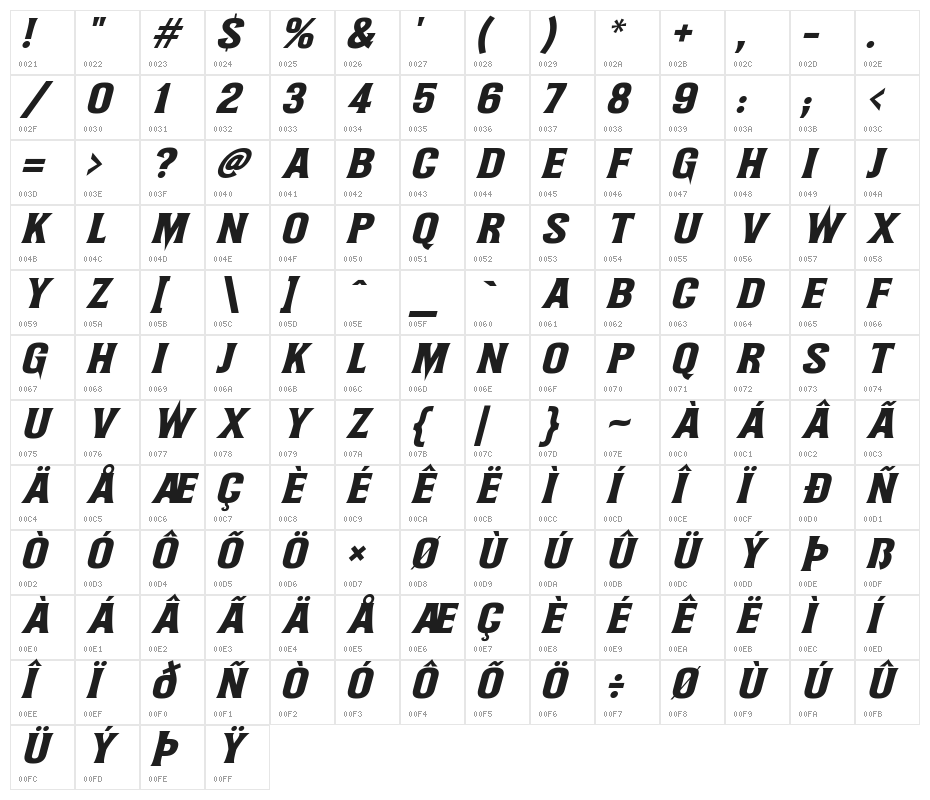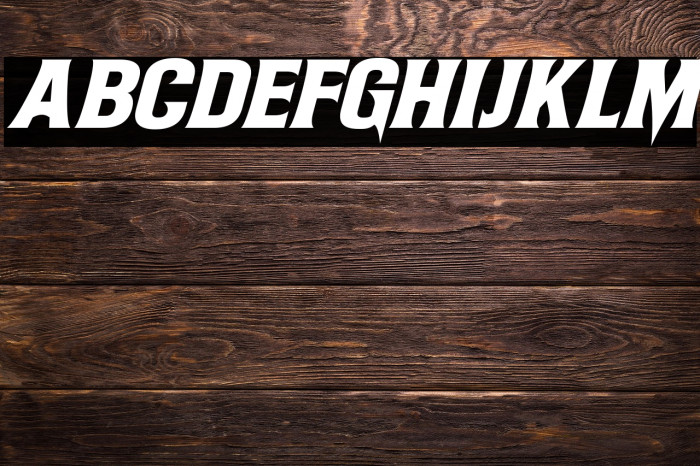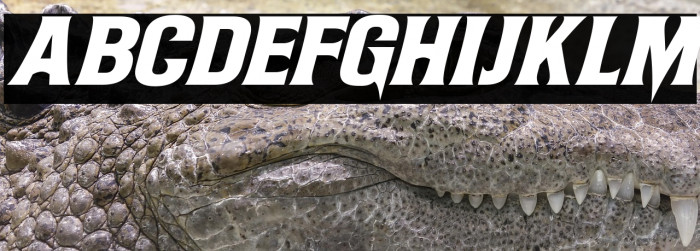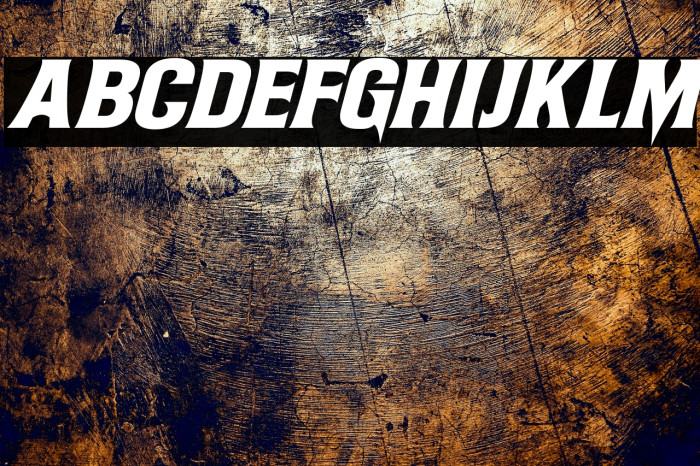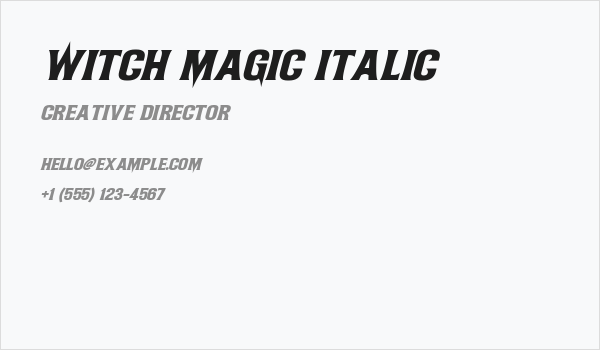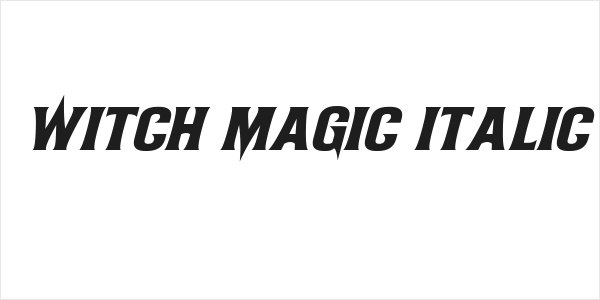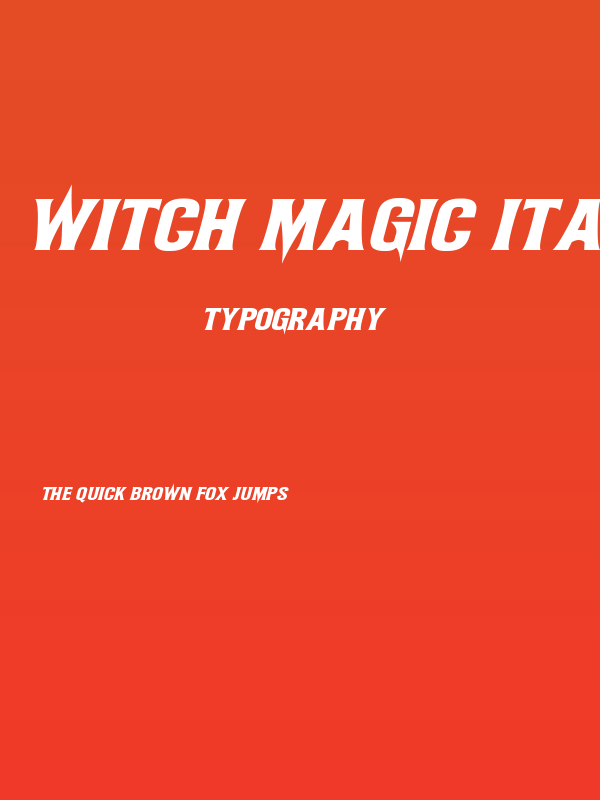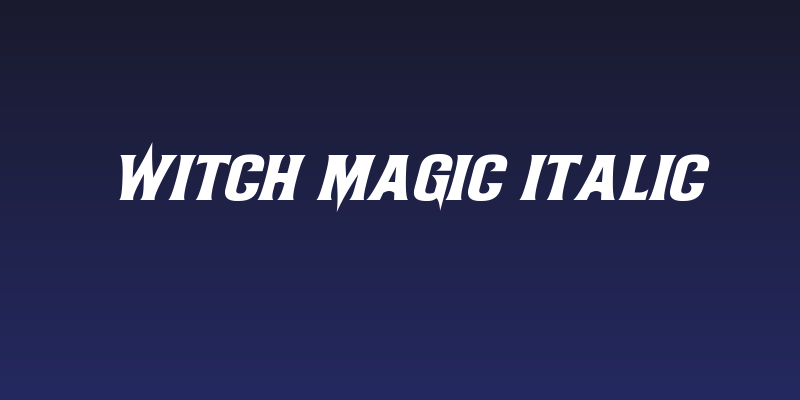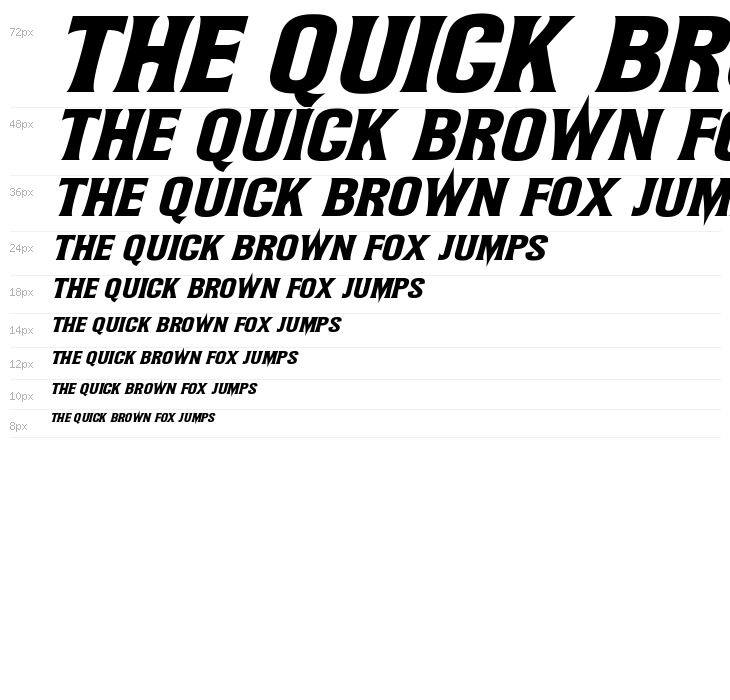
Witch Magic Italic Font
Witch Magic Italic Description
This font exudes a bold and dynamic presence with its italicized and sharply angled characters. The strokes are thick and consistent, giving it a strong and assertive appearance. The slanted design adds a sense of movement and energy, making it ideal for attention-grabbing headlines or impactful logos. The characters are tightly spaced, enhancing the compact and powerful look. Its modern style is complemented by high contrast in stroke thickness, which further emphasizes its boldness.